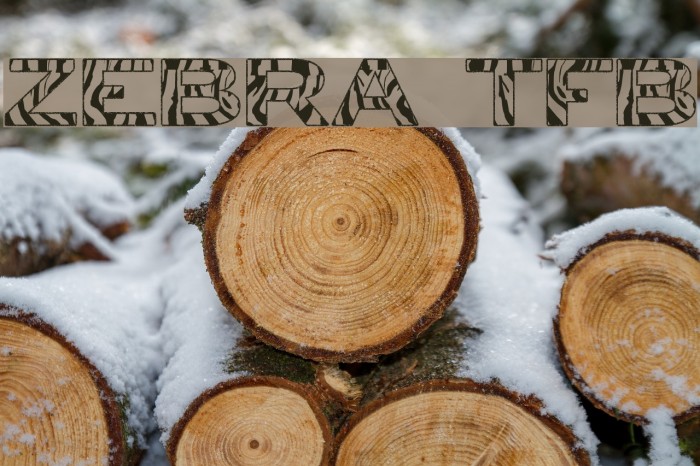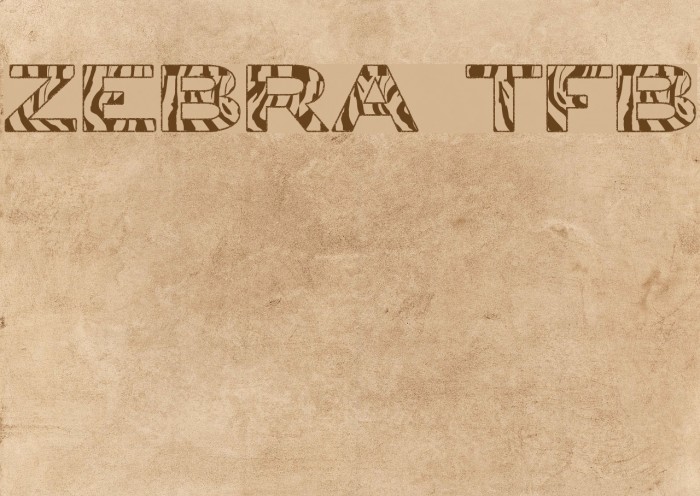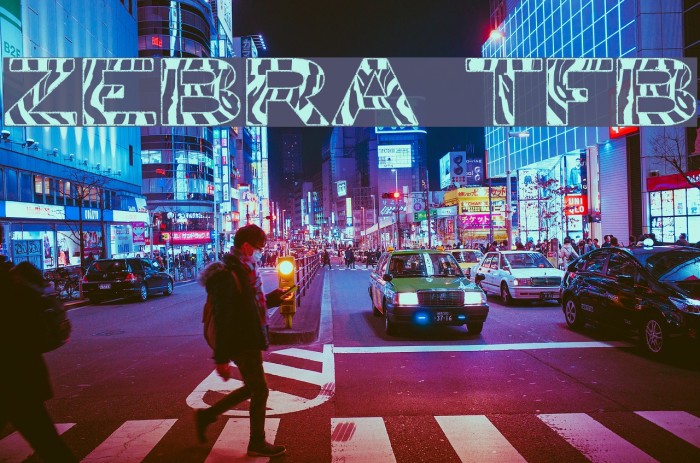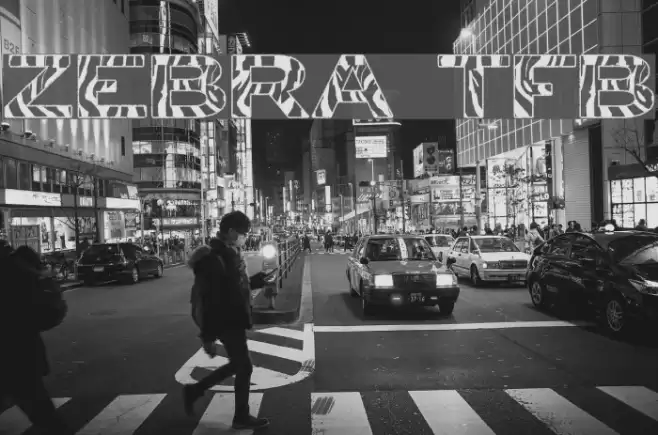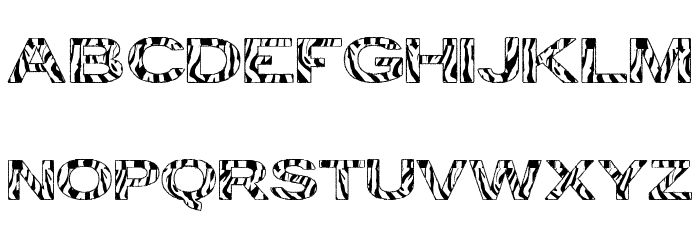
zebra tfb Font
zebra tfb Description
This font features a bold and decorative style with a unique zebra stripe pattern filling each character. The uppercase letters are designed with a playful yet structured appearance, making them stand out with their distinct animal print motif. The font's design is eye-catching and adds a sense of fun and creativity to any project. It maintains a consistent thickness throughout each letter, ensuring readability while emphasizing its decorative nature. The font is perfect for projects that require a touch of whimsy and boldness, such as children's book covers, playful branding, or themed event invitations.
| Proposed Projects | Ideal for children's books, playful branding, themed event invitations, and creative posters. |